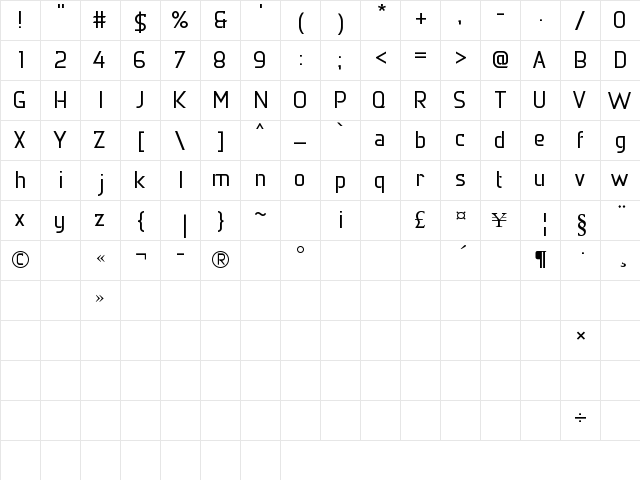
DERNIER Regular
| Designer | Hareesh Seela |
Design Context for DERNIER Typeface
DERNIER offers clean, dependable letterforms without strong stylistic allegiance, making it a practical choice for designers who need flexibility.